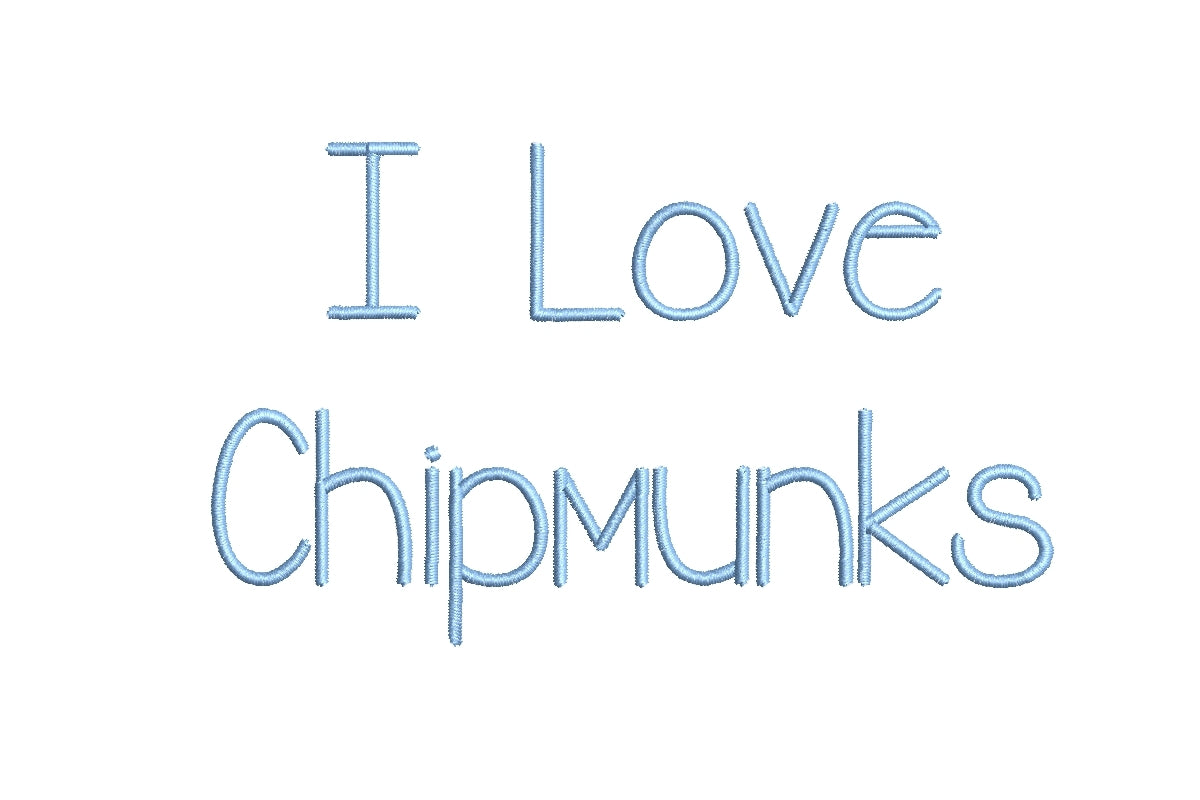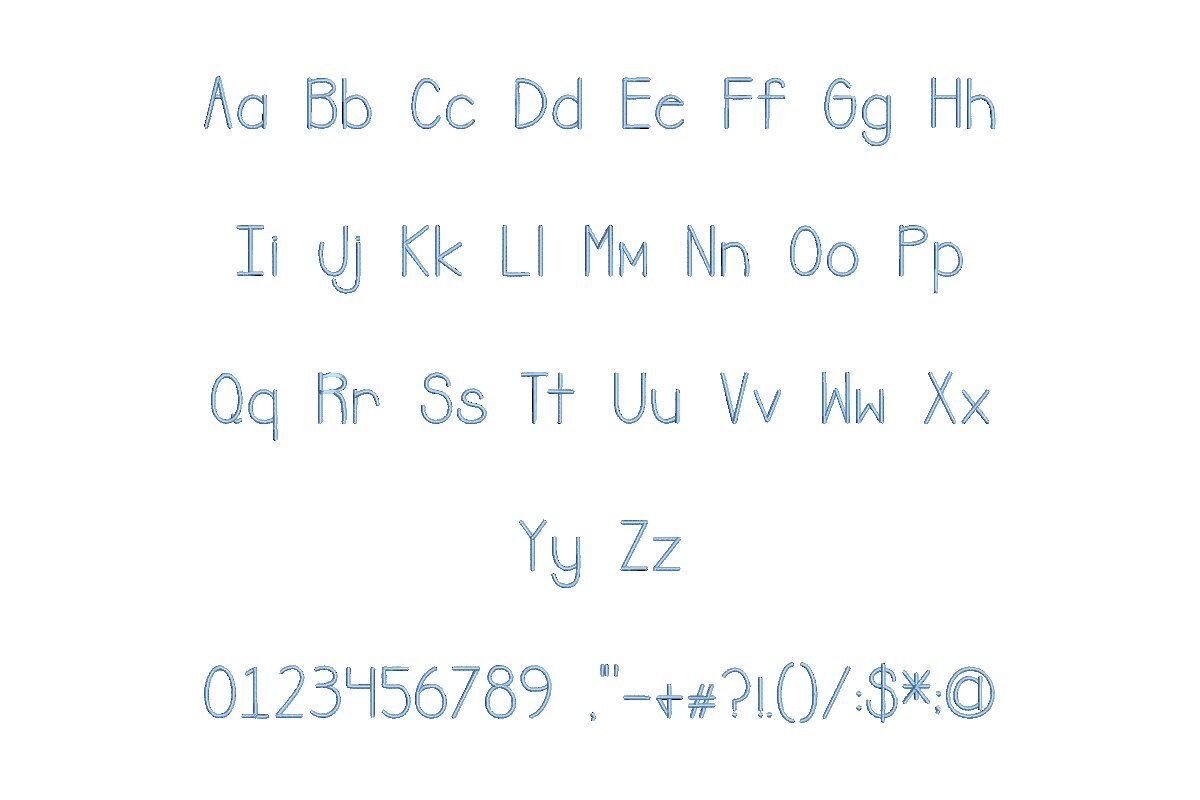
Introducing the "I Love Chipmunks ESA Font," a delightful journey into embroidery creativity. This font seamlessly integrates with Wilcom Studio e4.5.6 and Hatch 3 versions and beyond, ensuring compatibility that warms the heart. Whether you're an experienced embroiderer or a beginner, "I Love Chipmunks ESA" simplifies your digitizing and stitching with its smooth integration. Crafted with love and precision, this font adds a touch of whimsy and charm to your designs. Elevate your embroidery projects with the "I Love Chipmunks ESA Font" and spread cheer through your delightful creations. Order now to bring a smile to your stitching and achieve heartwarming results.